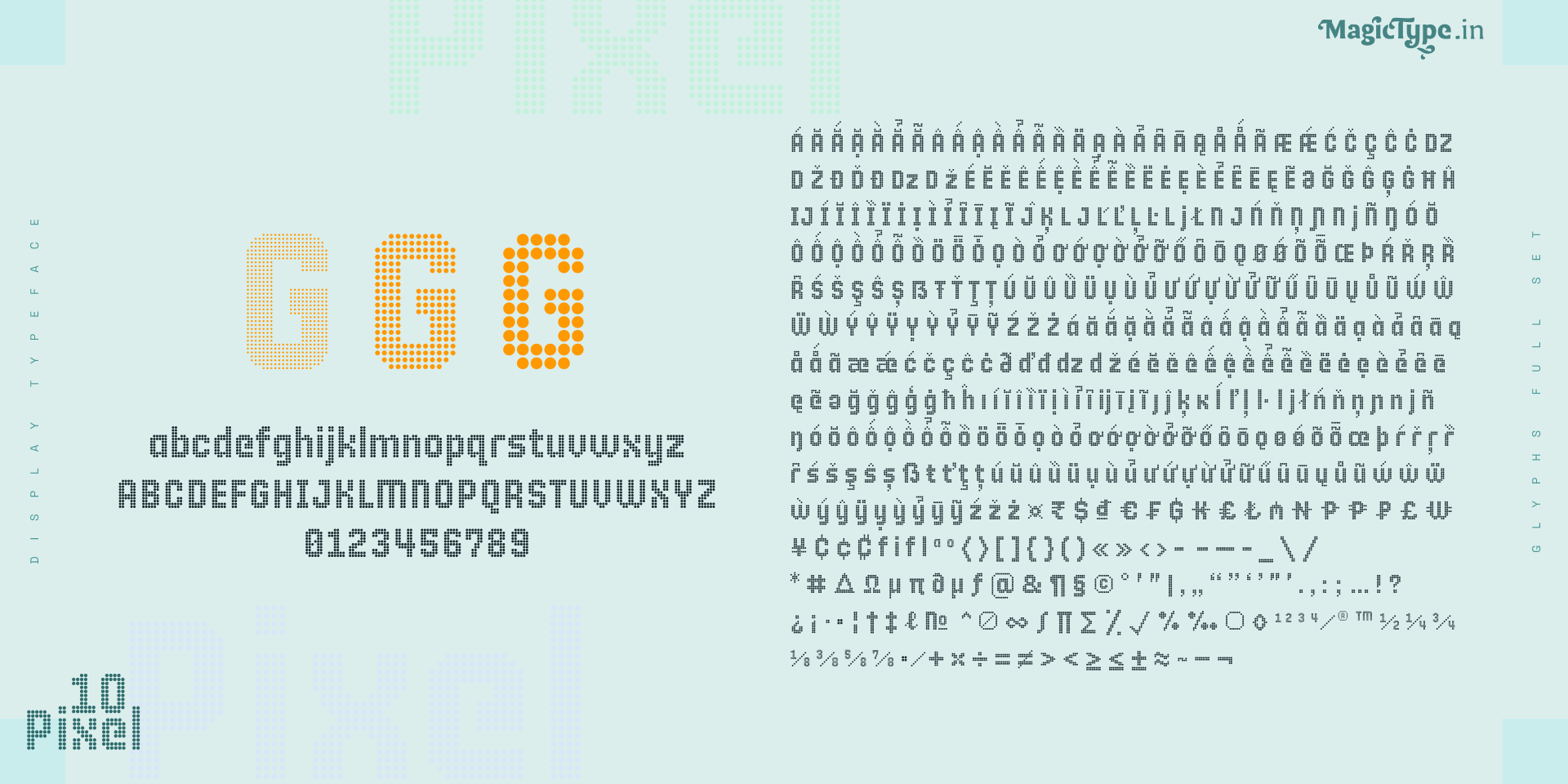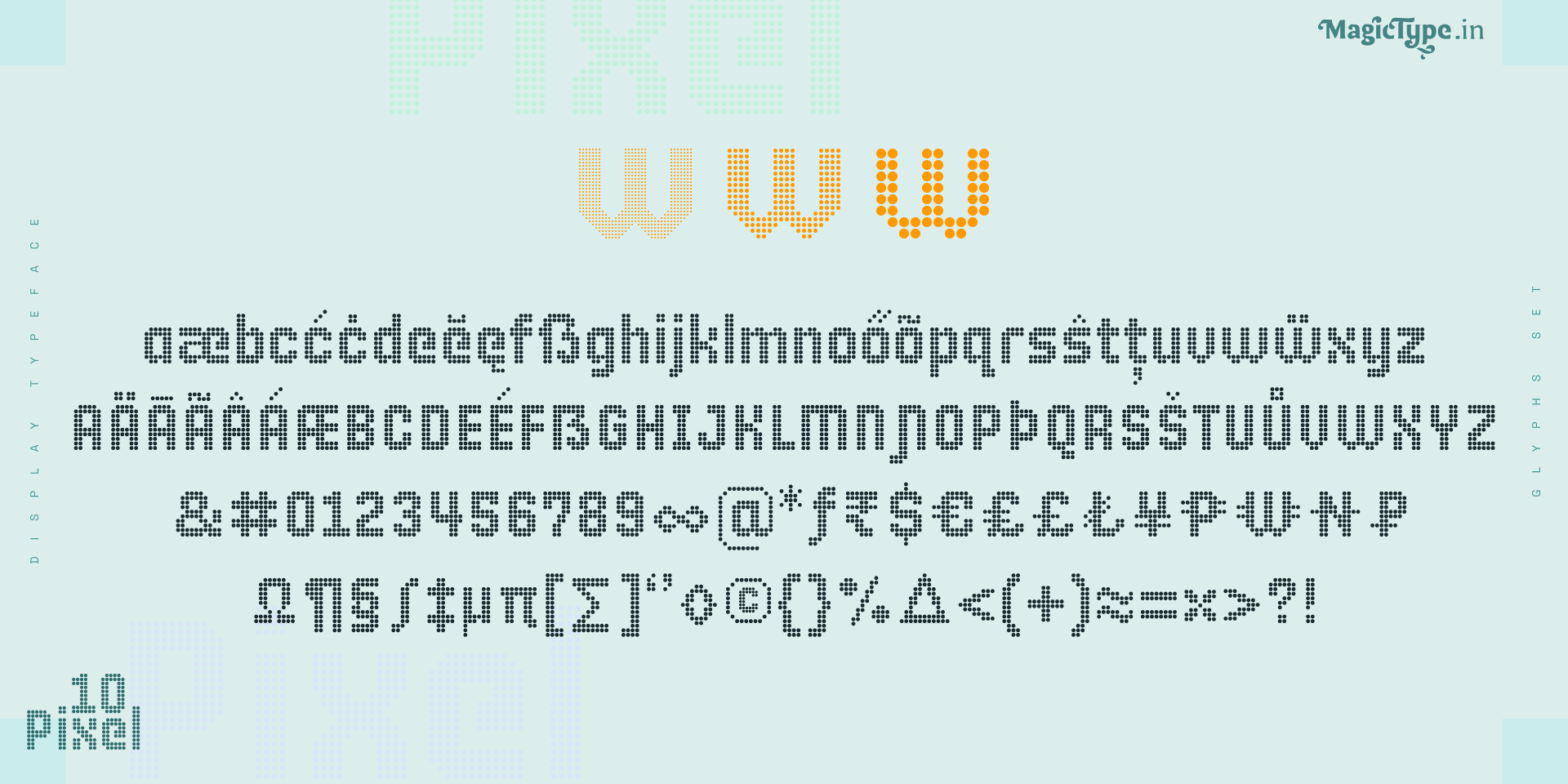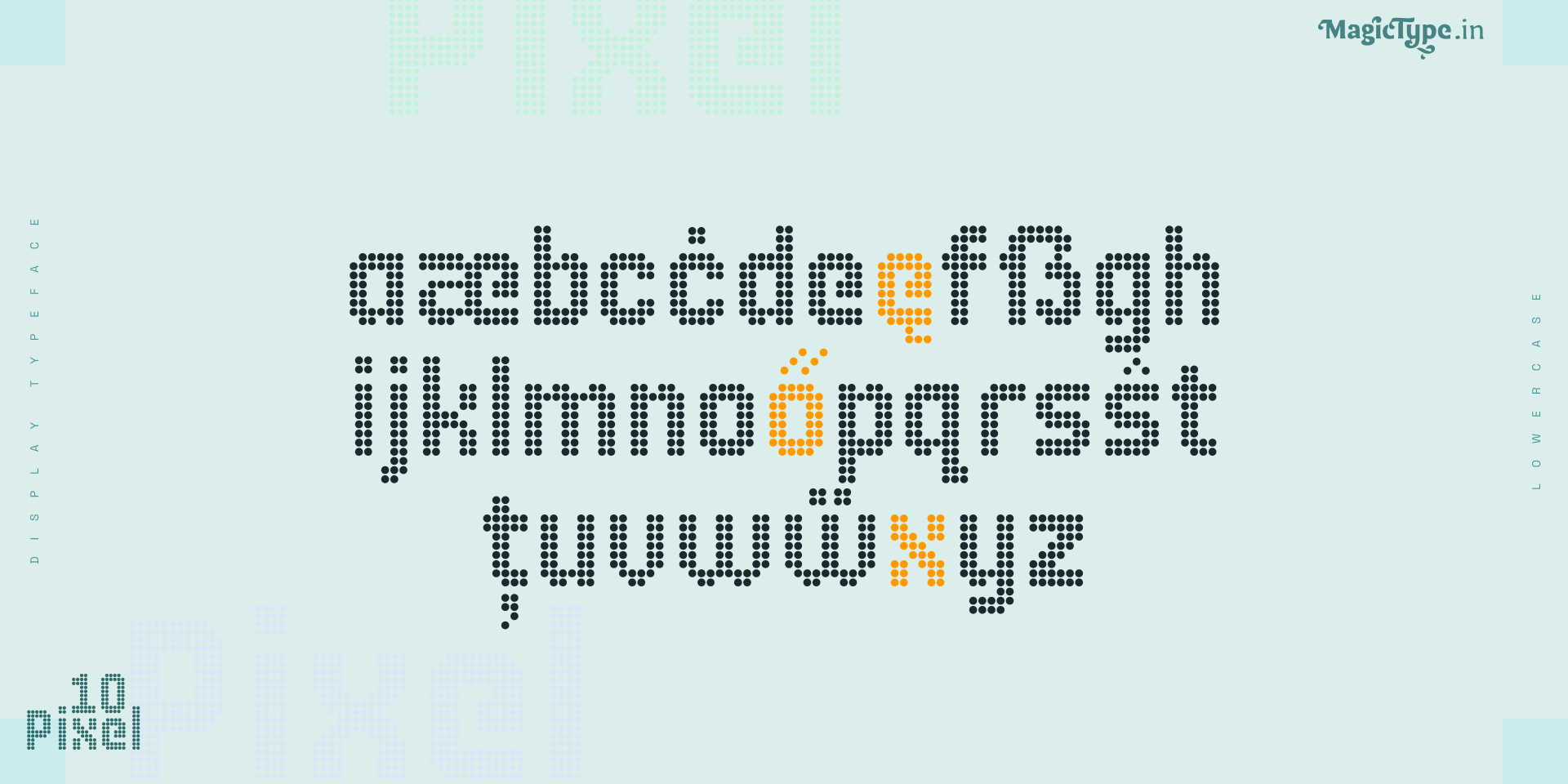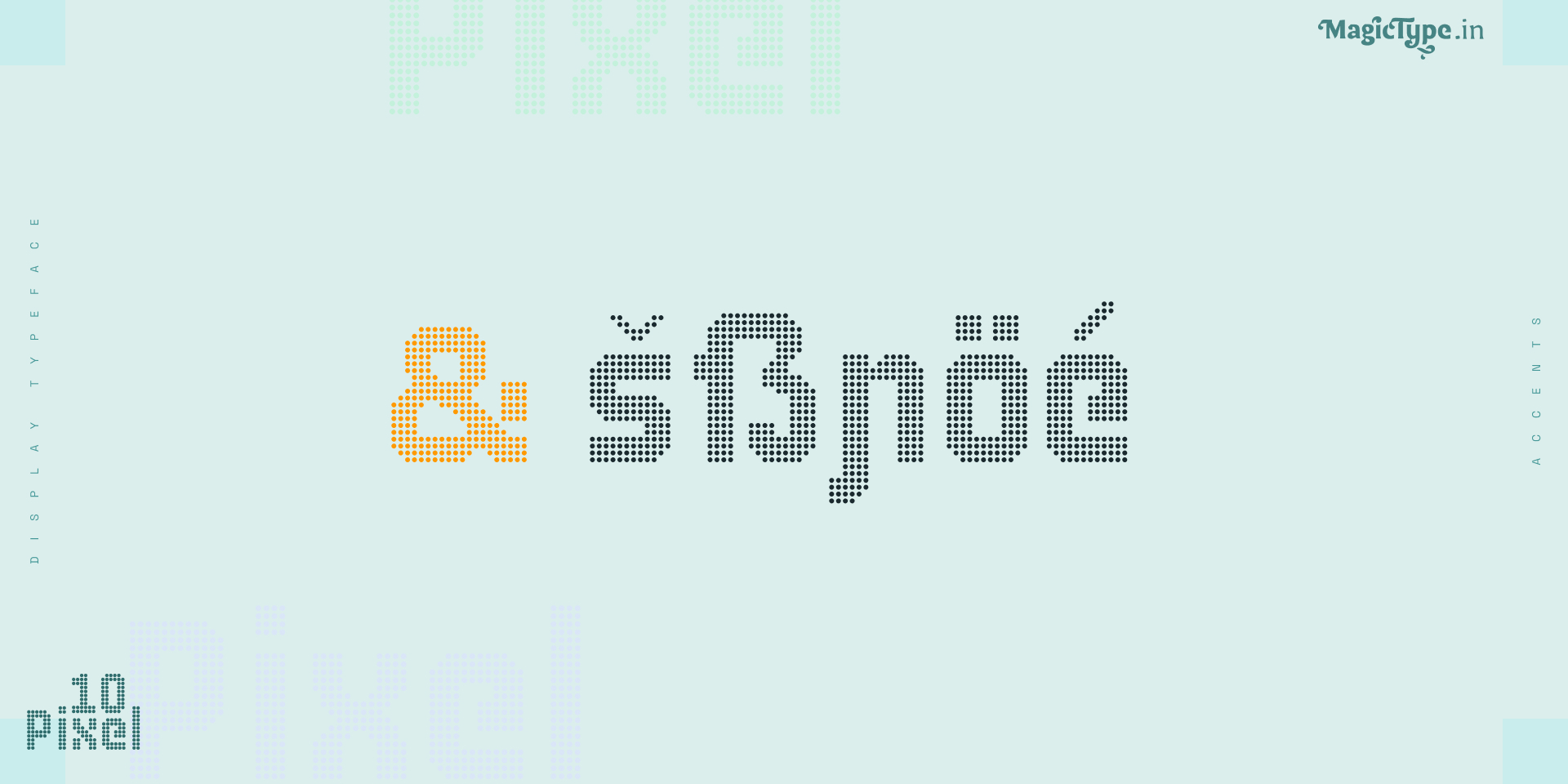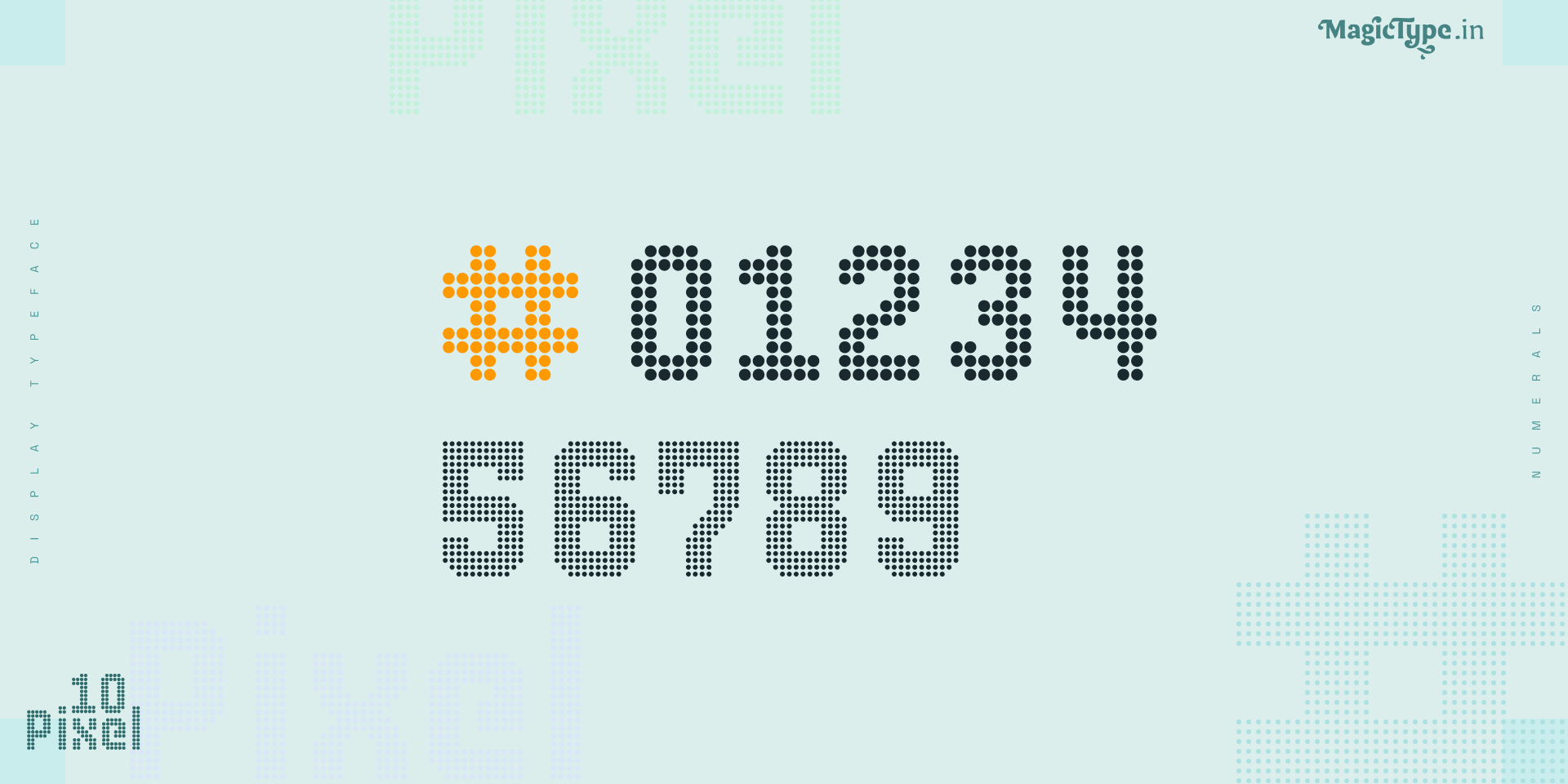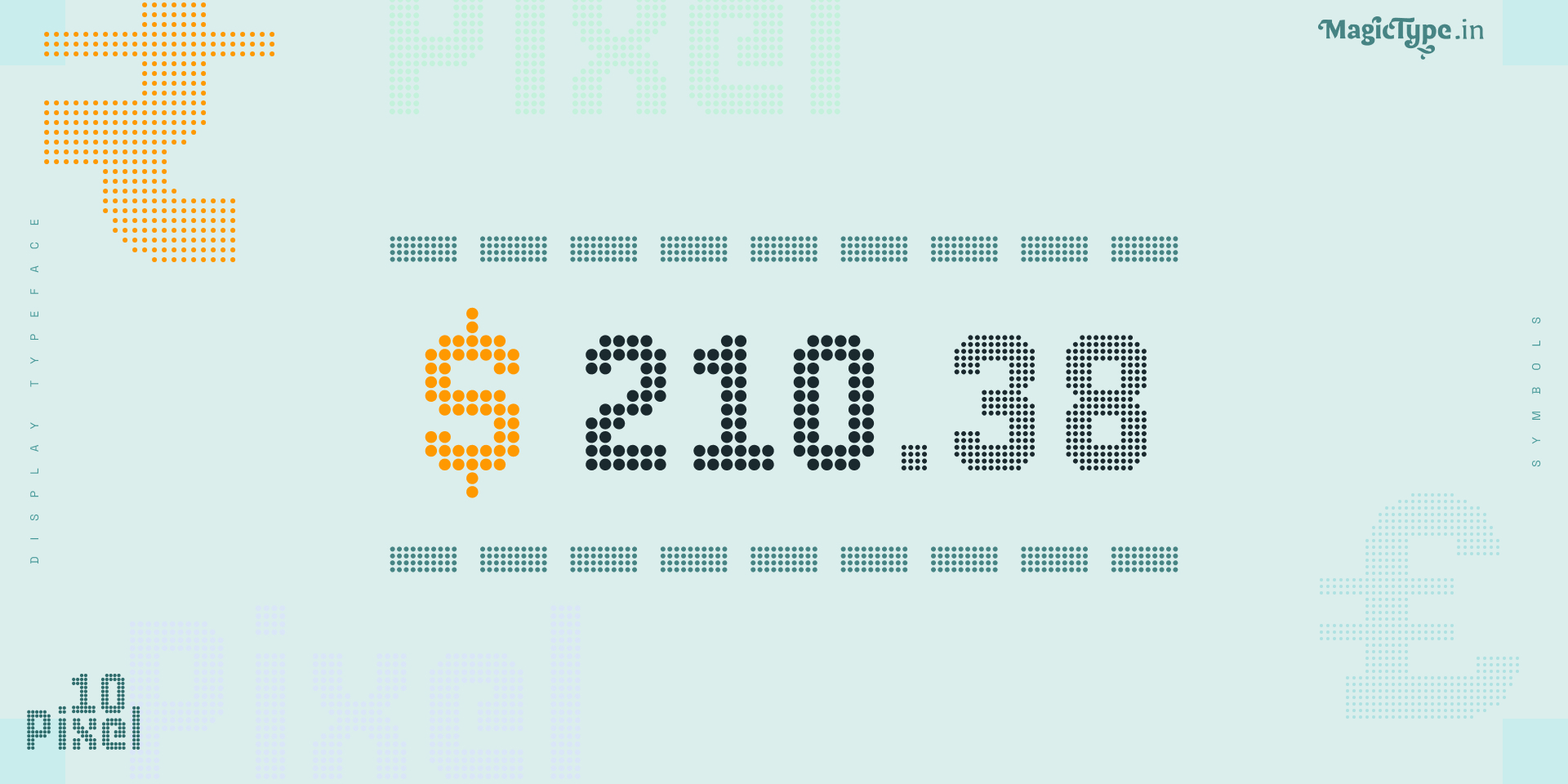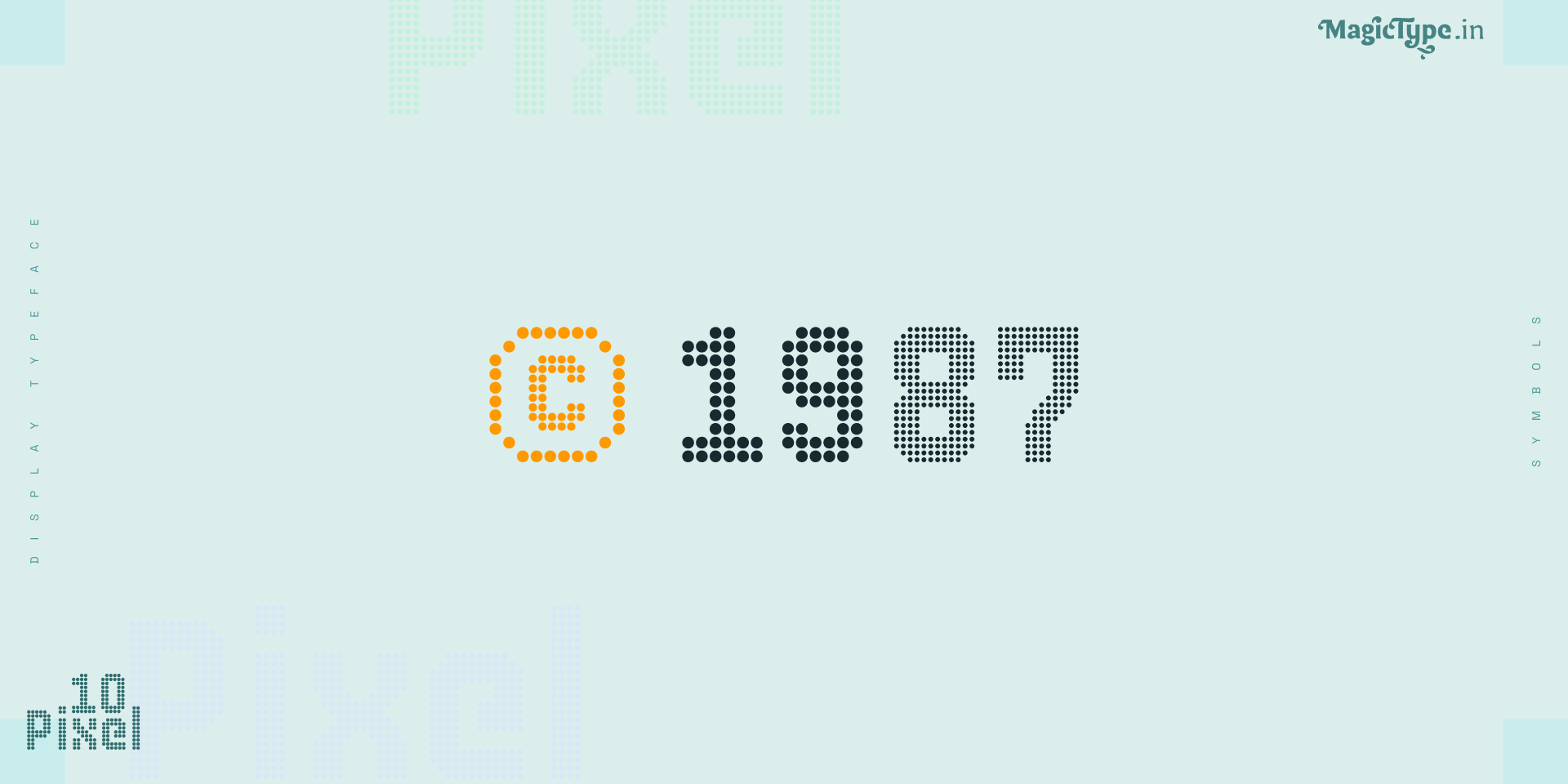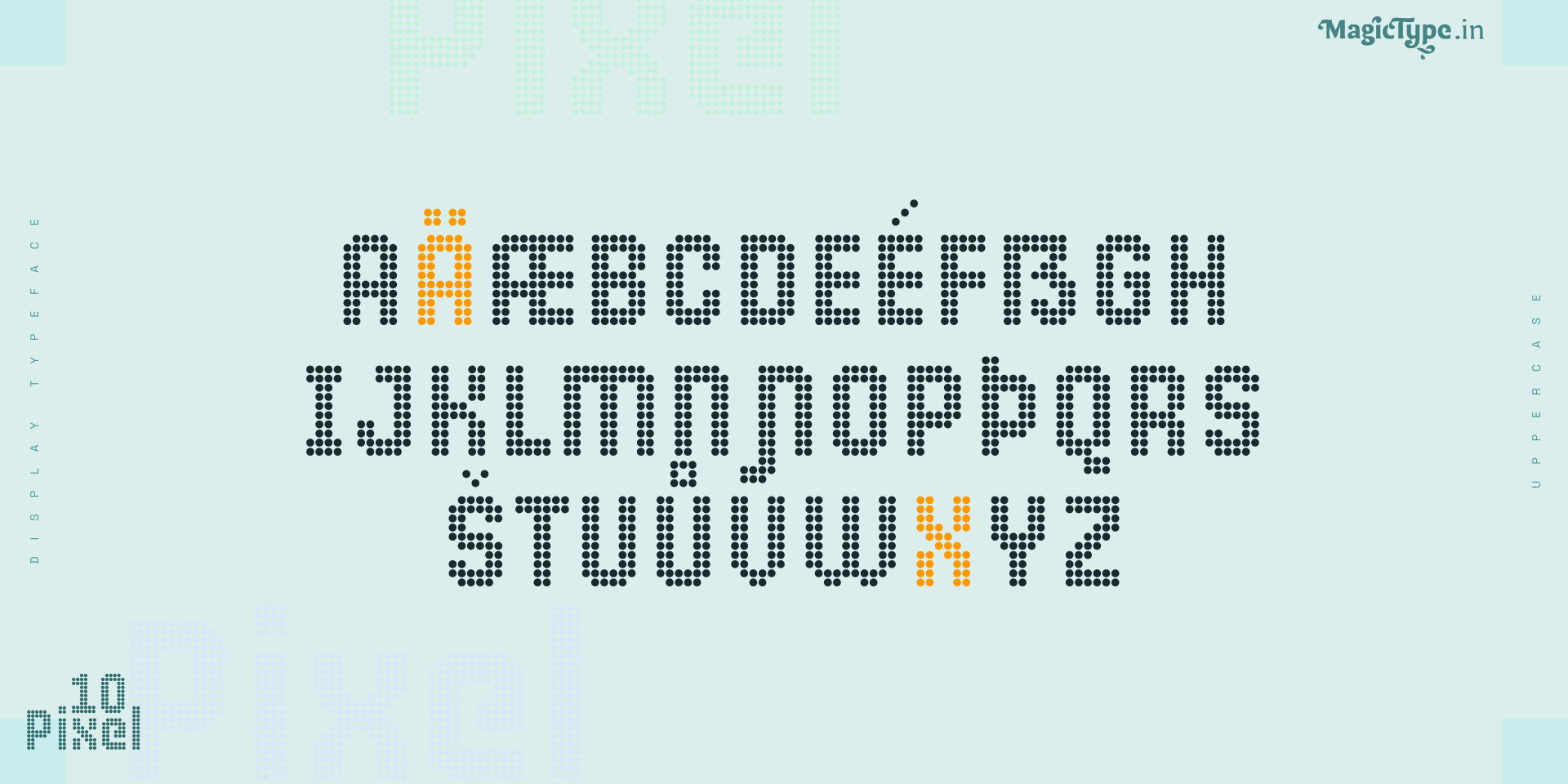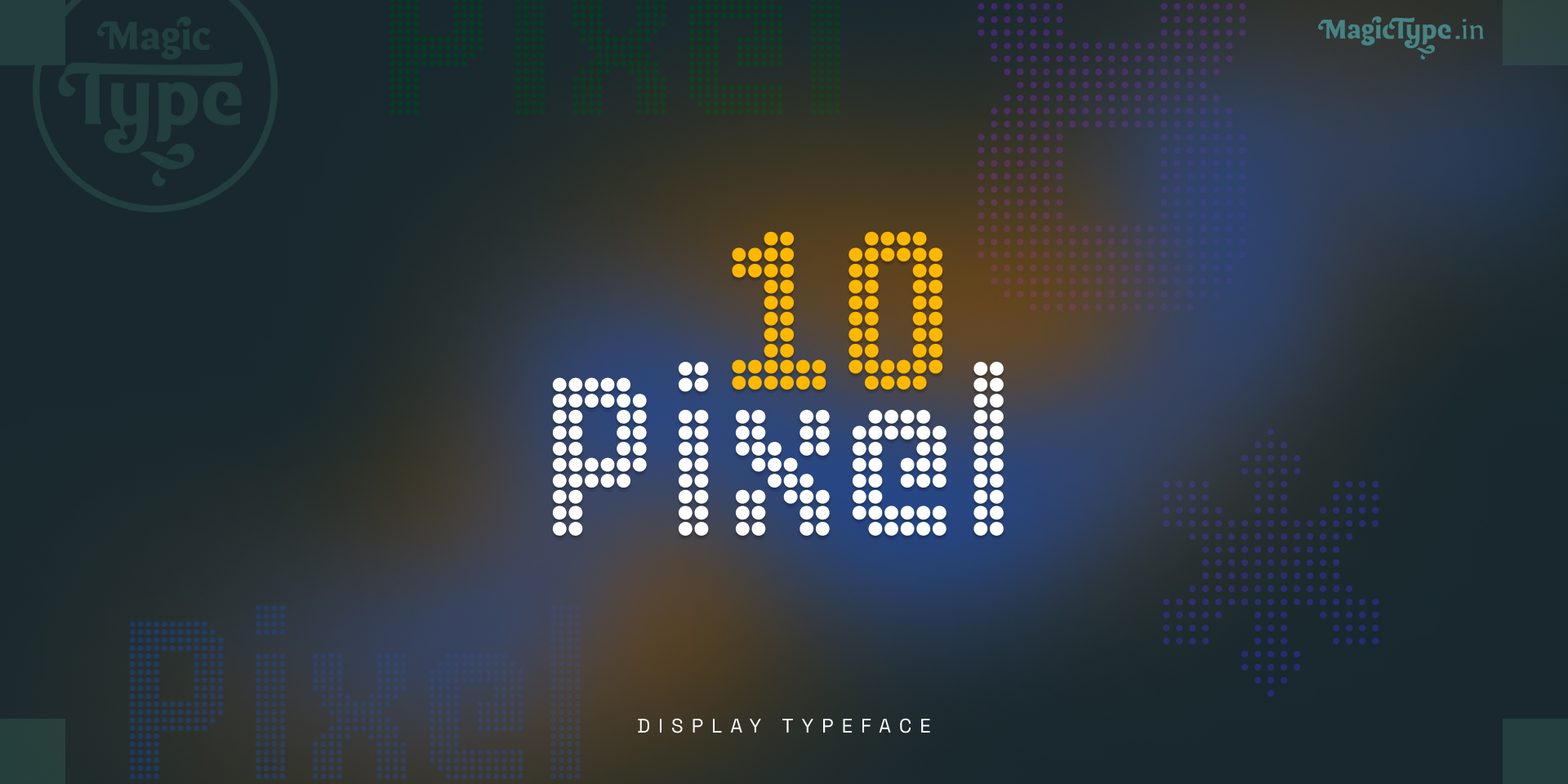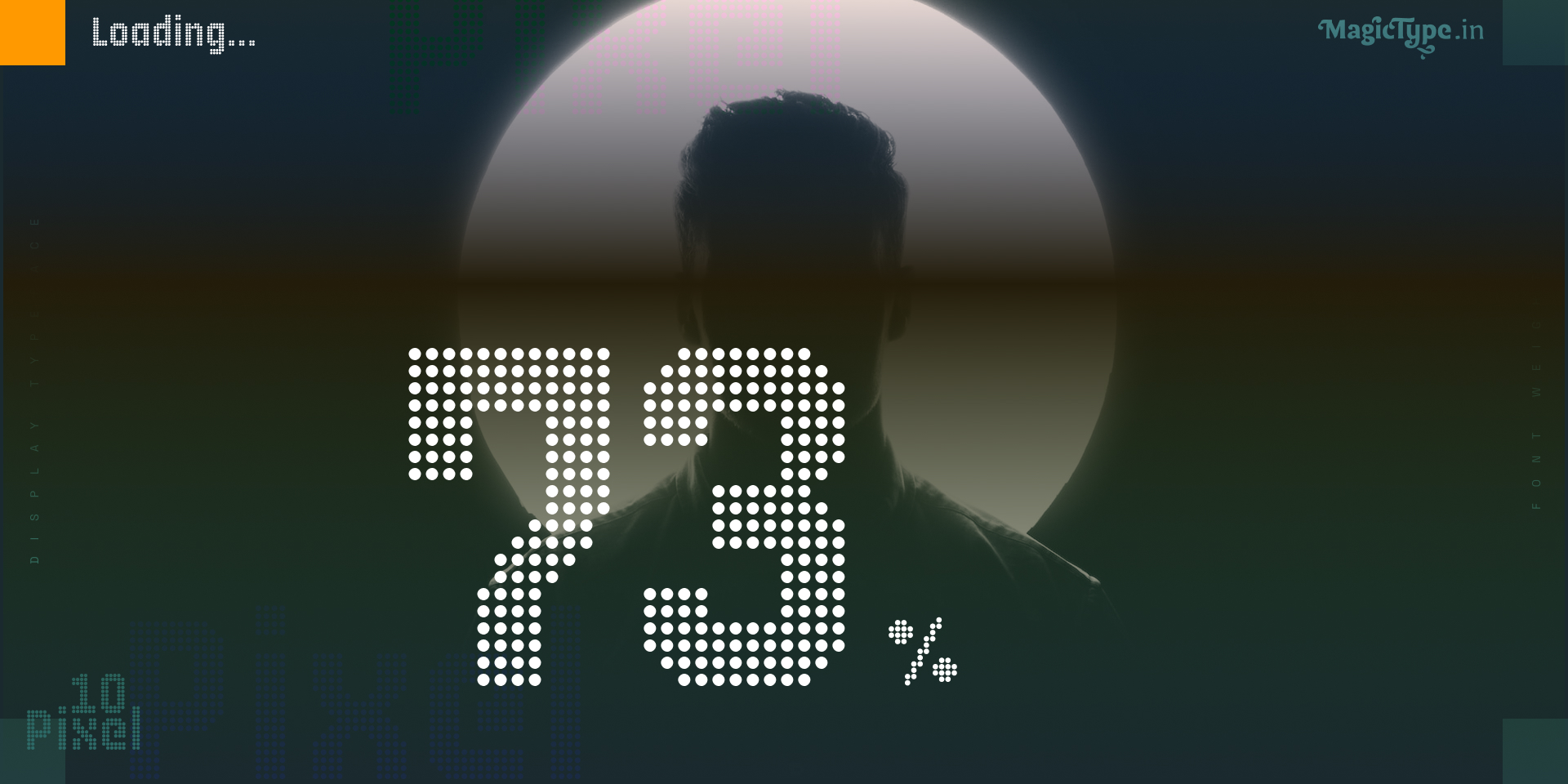
10 Pixel : Latin Display Sans Serif typeface | Genre: Drama, Fantasy, Science fiction | Designed by Jaikishan Patel
Introducing '10 Pixel', a rounded pixel typeface with three unique weights
'10 Pixel' is a rounded pixel typeface with three unique weights by pixel density; Light, Mild, and Strong. This font design is based on a 10-pixel unit height, giving it a consistent and uniform appearance. The glyphs are semi-condensed with equidistant pixels, providing a precise and balanced look. While this is not a monospace font, it includes monospace tabular number figures. The glyphs are optimized for creating impactful and eye-catching large-size headlines, titles, and display text for logos, branding, billboards, and posters. It may not be as suitable for smaller-size text.
The Type Family
'10 Pixel' is a Latin display typeface with extensive language support. With over 650 glyphs, it covers more than 250 languages, making it an excellent choice for use in a wide range of international projects. This family comes with 3 weights that are defined by the density of pixels, and not by the thickness of the glyph strokes. The typeface includes a range of OpenType features, including standard and discretionary ligatures, mathematical features, currency symbols, arrows, ordinals, accents, lining figures, tabular figures, fractions, alternative glyphs, and more.